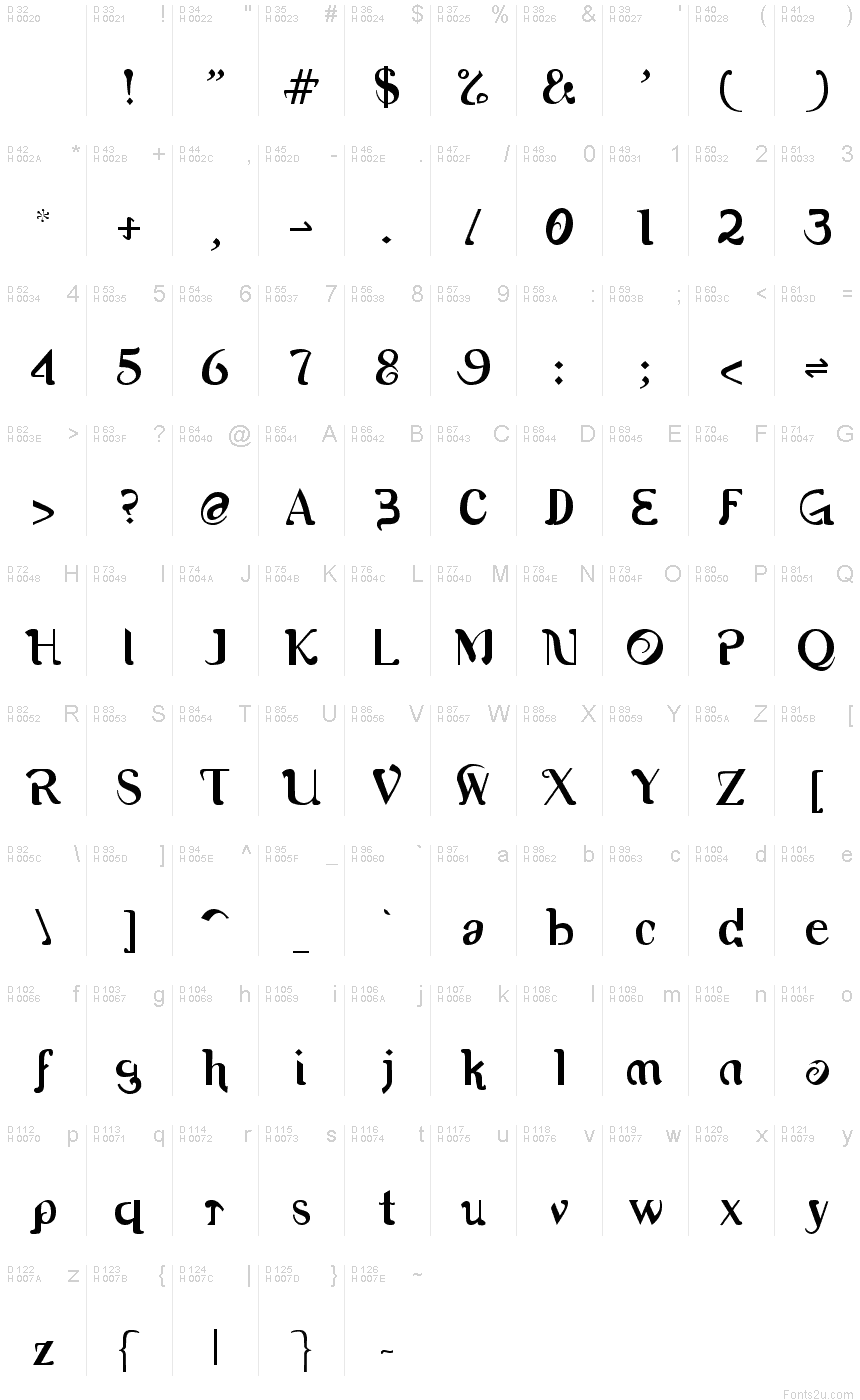
Romerati
Romerati is a font derived from the combination of the Roman alphabet and the indian language Gujerati.
It reflects how, although I live in South Africa (a western society) I have not forgotten my Indian Roots.